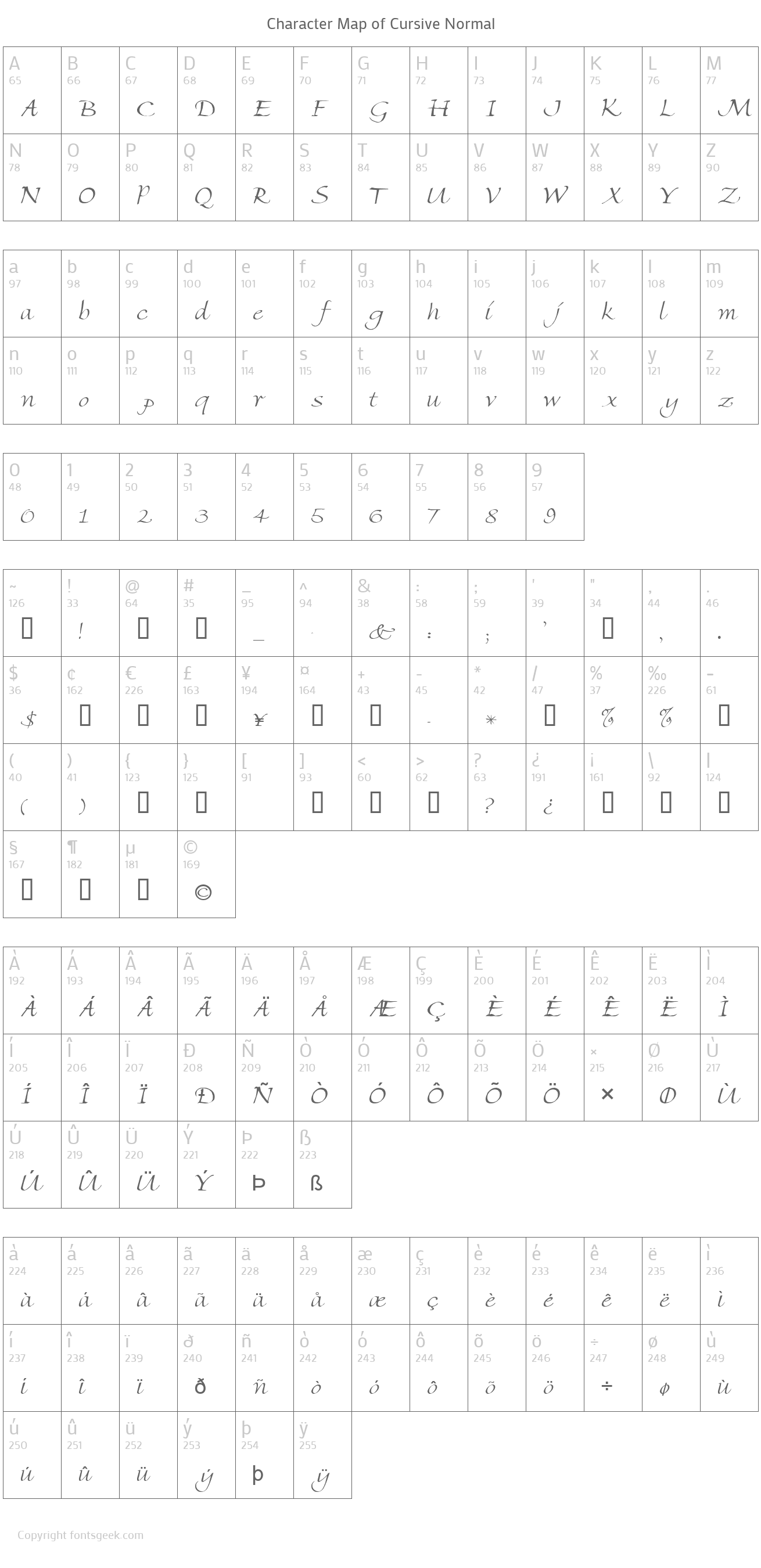
Awasome Normal Cursive Writing Fonts 2022
Awasome Normal Cursive Writing Fonts 2022. The cursive handwriting style is functional and intended to be used for. This is a free cursive letters generator tool to convert your custom text into cursive text font.
Some common cursive fonts for signatures in microsoft word include. Cursive text generator this is a simple online tool that converts regular text into cursive letter symbols. The best cursive fonts for creatives there are so many amazing cursive fonts out there for creatives!
The Cursive Handwriting Style Is Functional And Intended To Be Used For.
The best cursive fonts for creatives there are so many amazing cursive fonts out there for creatives! Sugar pie is a bold type cursive font that owes its stately beauty of elegance in nature to calligraphy that radiates softness, delicacy, and chic. Click to find the best 2,335 free fonts in the cursive handwriting style.
Here are just a few of our favorites: Elegant script fonts are what cursive is all about! Braille script, dapple script, bickham script,.
Learning Curve Font The Learning Curve Font Features Beautiful Handwriting That You May.